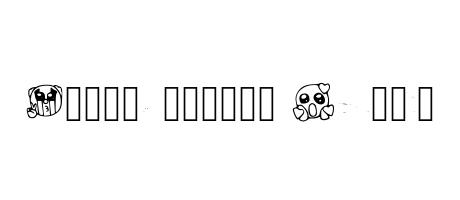
Tiktok
By Mocha Frappuccino
Emojis Tiktok Regular is a playful font featuring a mix of simple geometric shapes and expressive cartoon emojis. The emojis are integrated seamlessly within the typeface, replacing certain letters or acting as separators, creating a fun and visually engaging text style perfect for social media or informal designs. Its simplicity is balanced by its whimsical nature.